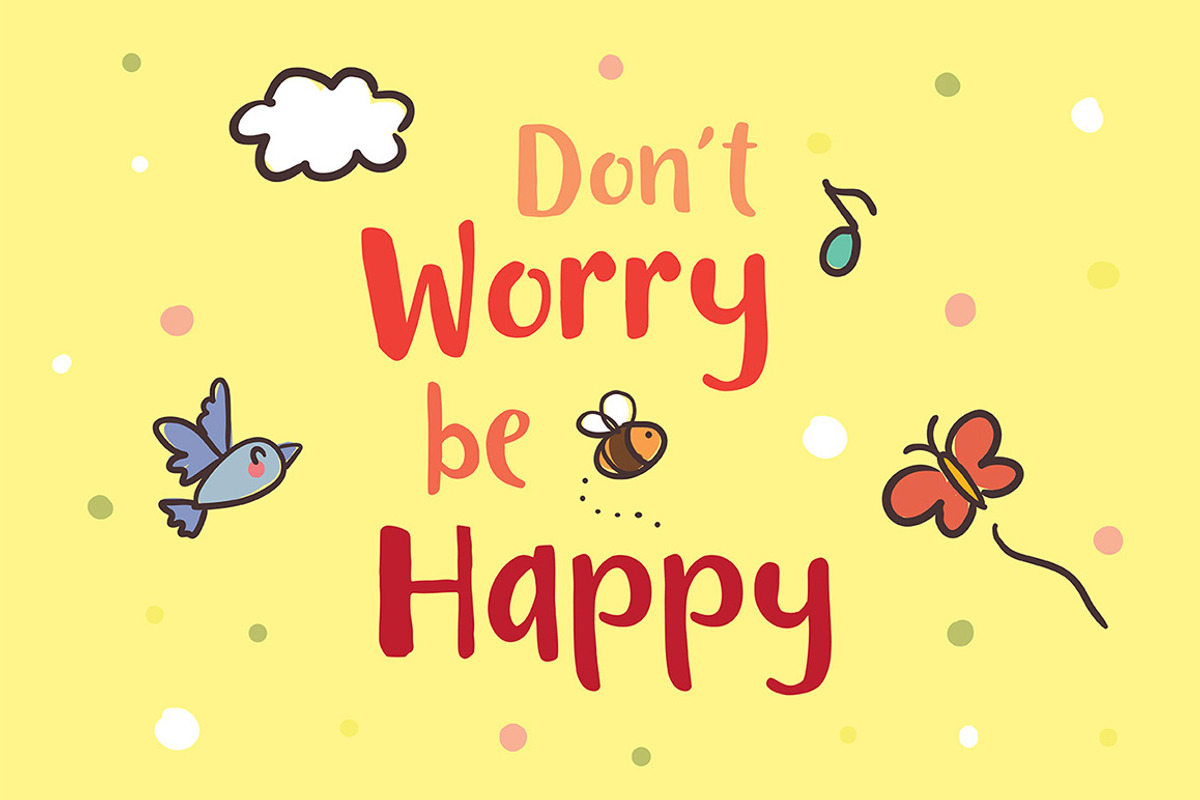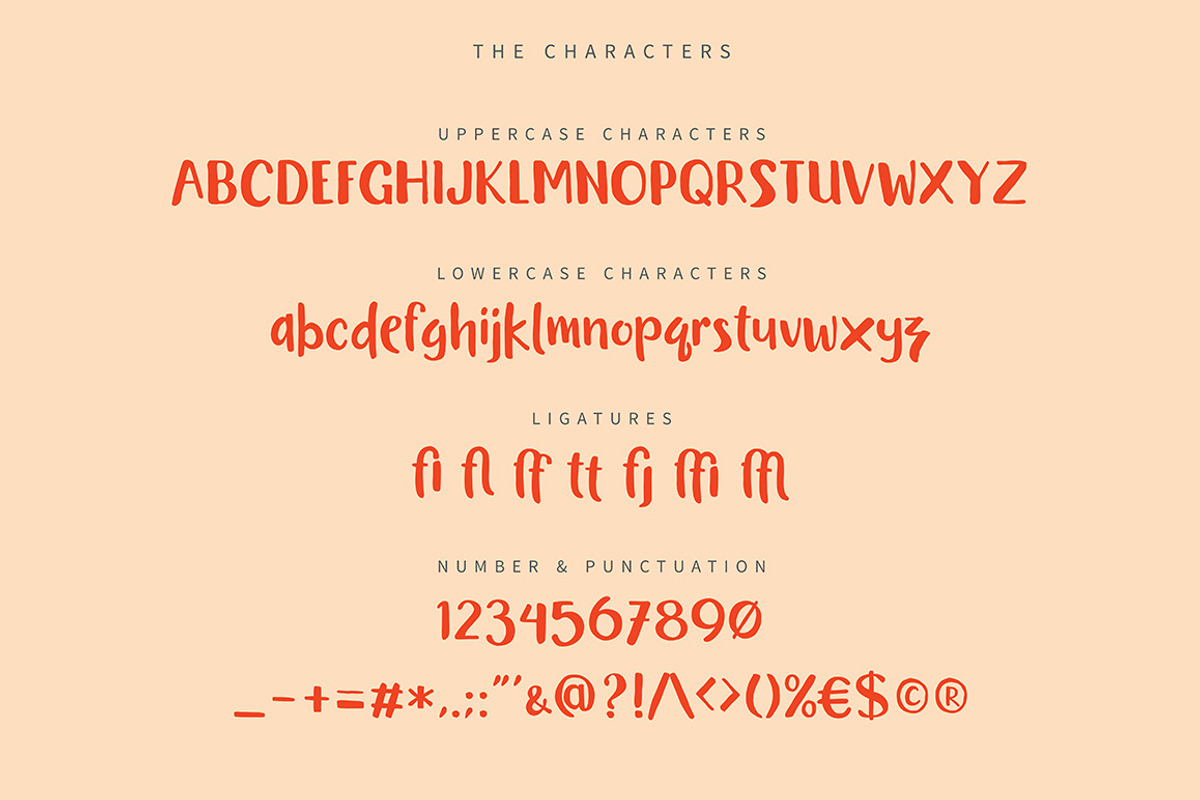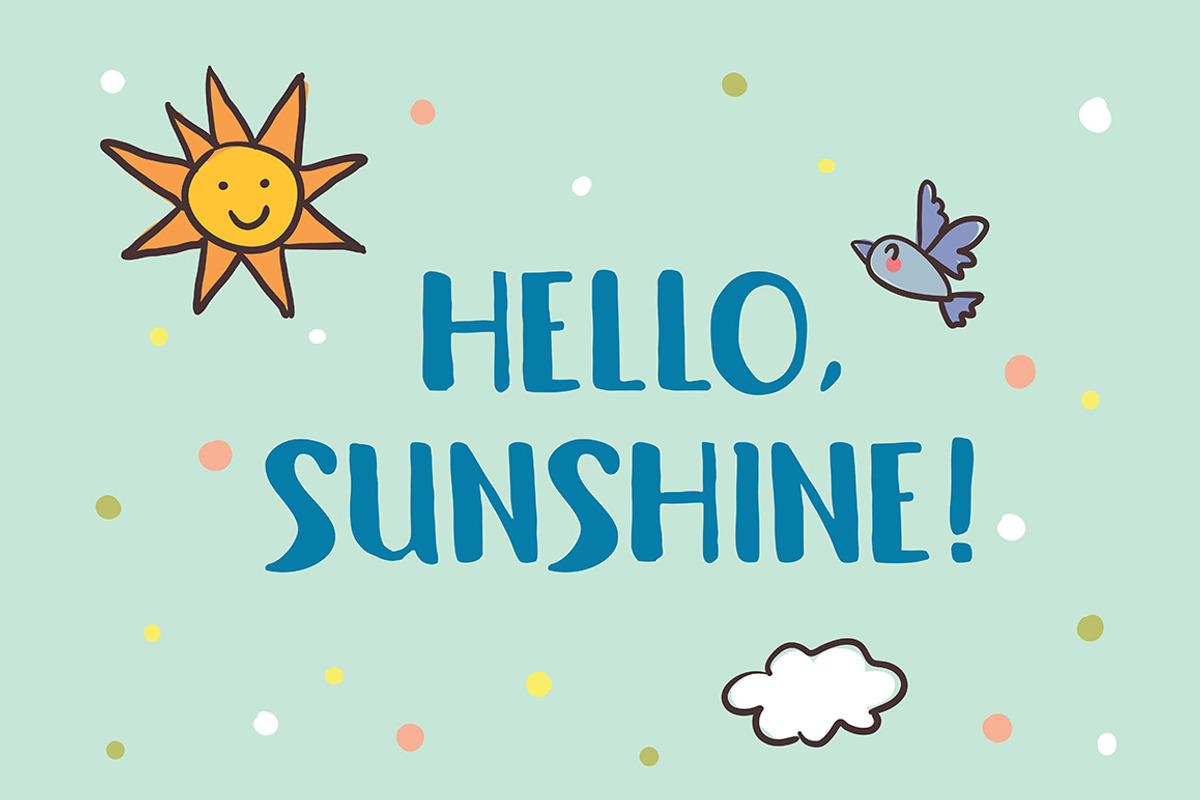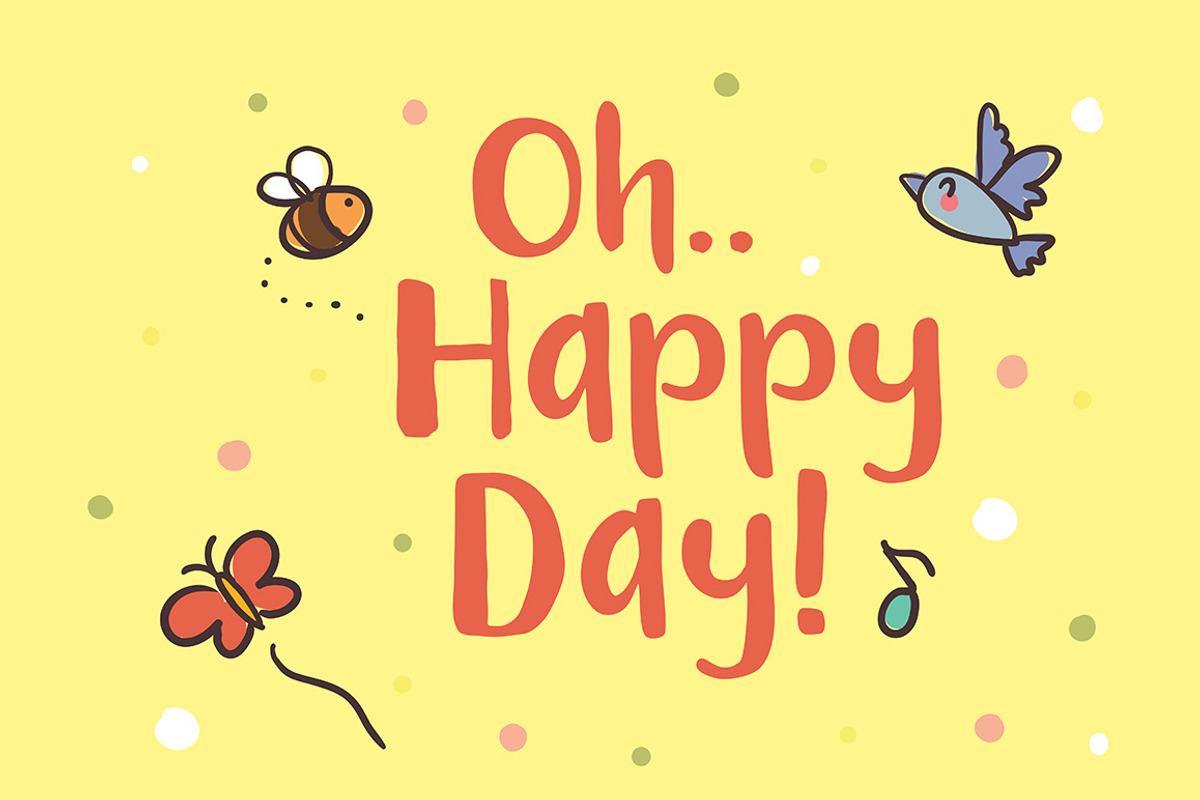
Book Worm Typeface
Book Worm Typeface by Me55enjah Design is a font selected for branding, posters, packaging, typography.
- This typeface add more fun in reading a book with this easy-to-read & playful characters.
- Including simple ligatures, number & punctuation, this typeface can be use for quotes, title, and also body text.
Why Book Worm Typeface is worth a look
Book Worm Typeface by Me55enjah Design fits naturally into Branding, posters, packaging, typography.